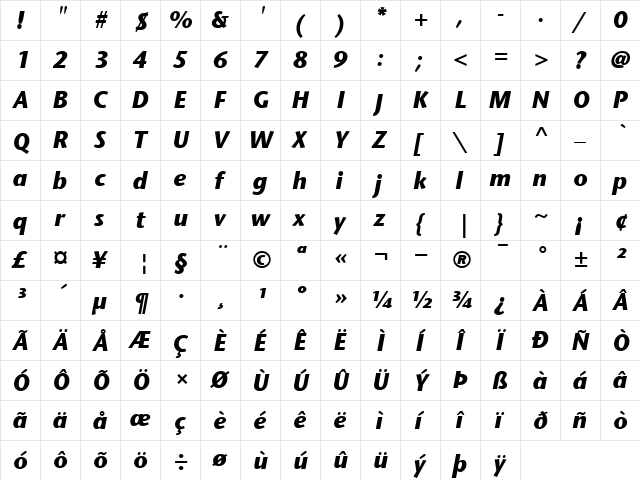
StoneSans BoldItalic
Design Context for StoneSans Typeface
StoneSans takes a measured approach to typography — its balanced proportions and neutral character make it a reliable workhorse for both digital and print work. The slanted form adds forward momentum and visual energy. The heavy weight commands attention and anchors typographic hierarchies.
Pro Tip: Use StoneSans for emphasis, pull quotes, and subheadings where its slanted energy can add rhythm to the layout.